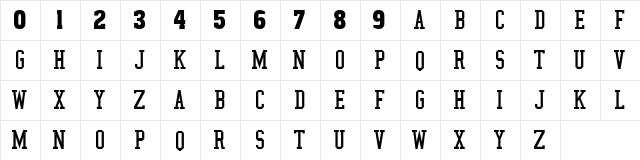
NBA Nuggets Regular
Design Context for NBA Nuggets Typeface
NBA Nuggets offers clean, dependable letterforms without strong stylistic allegiance, making it a practical choice for designers who need flexibility.